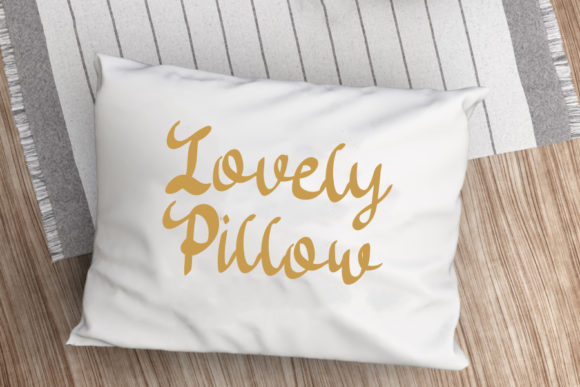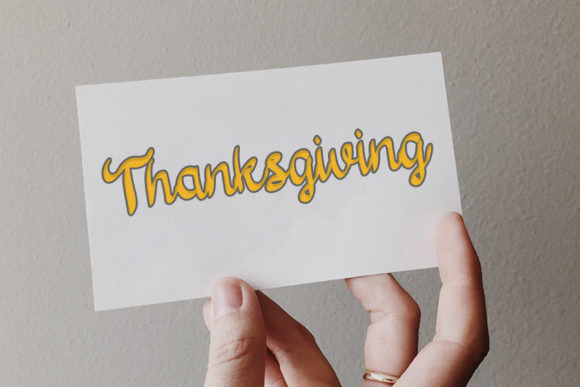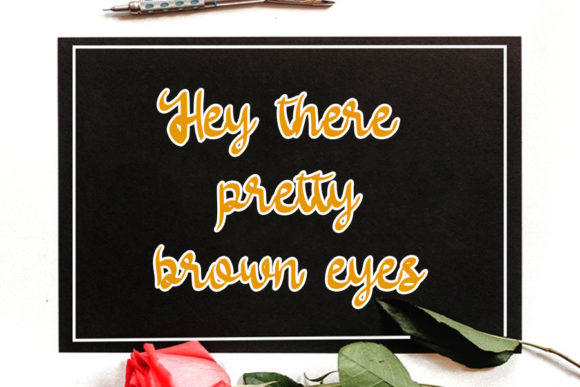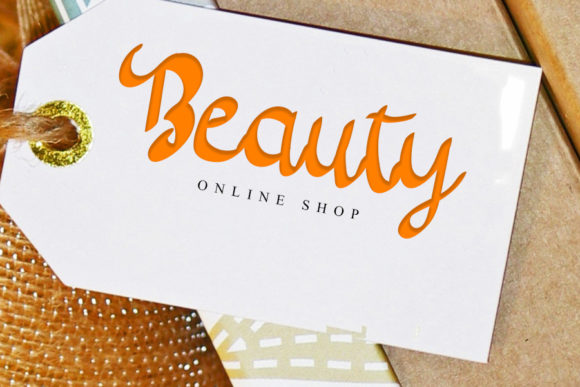
Introducing Harvest Moon Font: A Beautiful Handwritten Script for Your Creative Projects
Are you a designer, crafter, or DIY enthusiast looking for a unique and versatile font to elevate your creative projects? Look no further than Harvest Moon Font, a stunning handwritten script that’s sure to capture your heart. With its sweet and flowing style, this beautiful font is perfect for creating gorgeous stationary art, social media posts, and so much more.
What Makes Harvest Moon Font So Special?
Harvest Moon Font is a true gem in the world of typography. Its incredibly versatile style makes it suitable for a wide range of applications, from elegant wedding invitations to playful DIY crafts. The font’s handwritten script features smooth, flowing lines and a subtle charm that’s sure to add a touch of warmth and personality to any project.
Whether you’re a seasoned designer or a crafting novice, Harvest Moon Font is easy to use and adaptable to your unique style. The font’s flexibility allows you to experiment with different formatting options, making it perfect for creating eye-catching graphics, posters, and social media posts that stand out from the crowd.
Perfect for Stationary Art and Crafts
Harvest Moon Font is a dream come true for crafters and stationery enthusiasts. Imagine creating beautiful handmade cards, invitations, and journal pages with a font that looks like it was written with love. The font’s elegant script style is perfect for adding a personal touch to your craft projects, making them truly special and one-of-a-kind.
From DIY gift tags to custom party decorations, Harvest Moon Font is the perfect choice for any crafting project that requires a touch of elegance and sophistication. The font’s sweet and flowing style is sure to inspire your creativity and help you create stunning craft projects that showcase your unique personality.
Elevate Your Social Media Posts with Harvest Moon Font
In today’s digital age, social media is an essential platform for designers, crafters, and DIY enthusiasts to showcase their work and connect with like-minded individuals. Harvest Moon Font is the perfect tool to elevate your social media posts and make them stand out from the crowd.
Whether you’re sharing your latest crafting project, promoting your design services, or simply sharing your creative process, Harvest Moon Font adds a touch of elegance and sophistication to your social media posts. The font’s beautiful script style is sure to grab the attention of your followers and leave a lasting impression.
Key Features of Harvest Moon Font
- Beautiful Handwritten Script: Harvest Moon Font features a stunning handwritten script with smooth, flowing lines and a subtle charm.
- Incredibly Versatile: The font’s versatile style makes it suitable for a wide range of applications, from elegant wedding invitations to playful DIY crafts.
- Elegant and Sophisticated: Harvest Moon Font adds a touch of elegance and sophistication to any project, making it perfect for designers, crafters, and DIY enthusiasts.
- Easy to Use: The font is easy to use and adaptable to your unique style, making it perfect for both beginners and experienced designers.
Get Creative with Harvest Moon Font
Ready to fall in love with Harvest Moon Font? With its beautiful handwritten script and incredibly versatile style, this stunning font is sure to become a favorite in your design toolkit. Whether you’re a designer, crafter, or DIY enthusiast, Harvest Moon Font is the perfect choice for any creative project that requires a touch of elegance and sophistication.